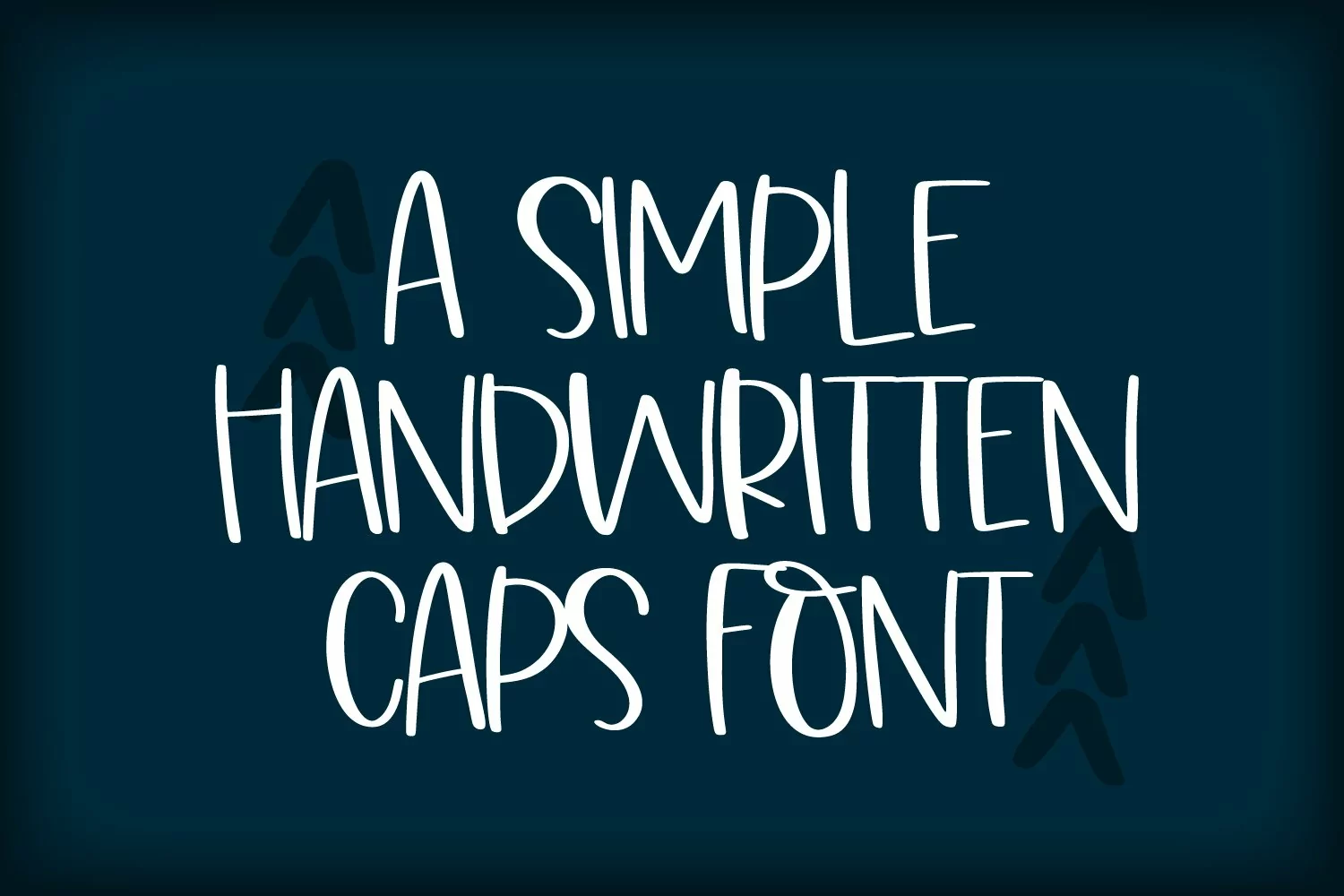
Tingle Tangle - A Christmas Font Quad!
One script with each lower case letter having 5 alternatives
A Simple, but clean and cut friendly, hand lettered caps print
One Doodle Font with over 50 fun, clean, hand drawn doodles to create word art.